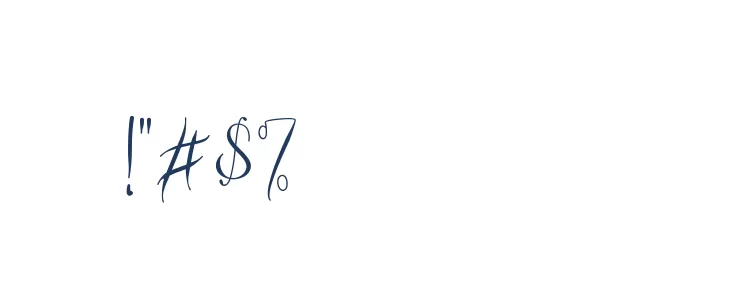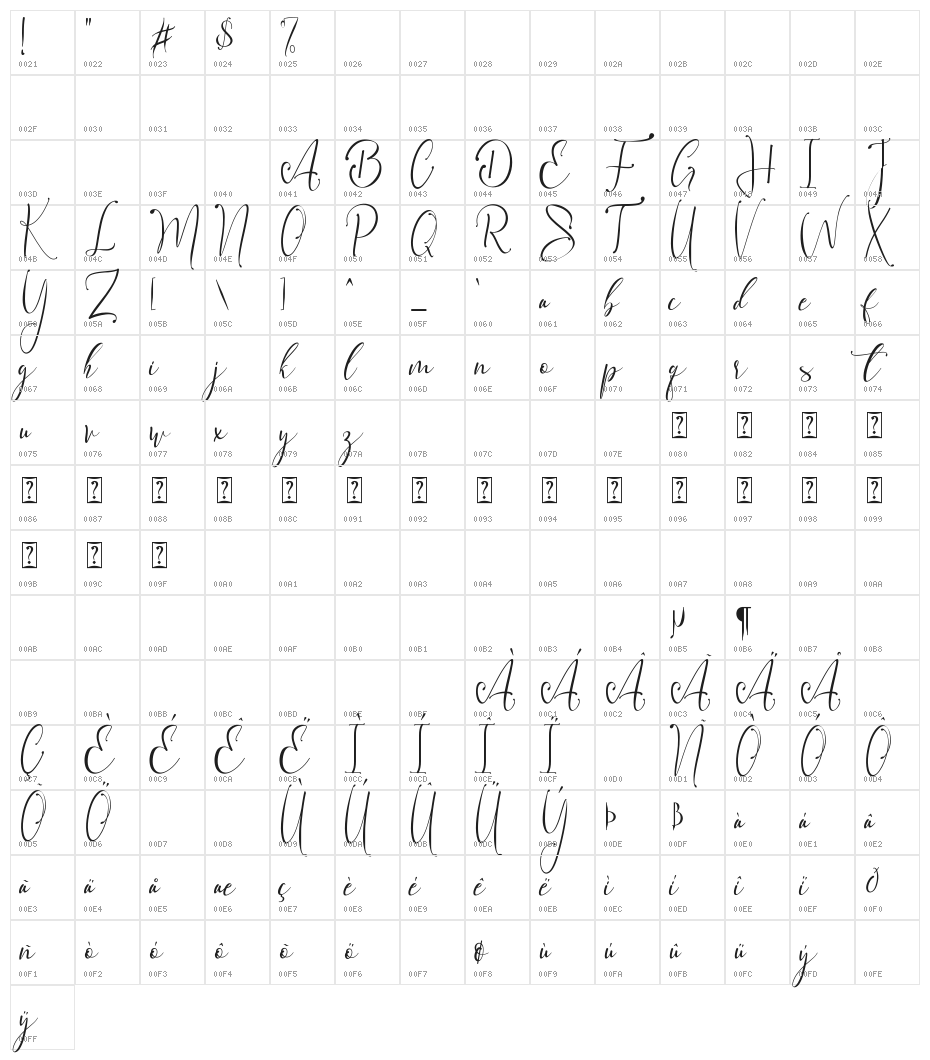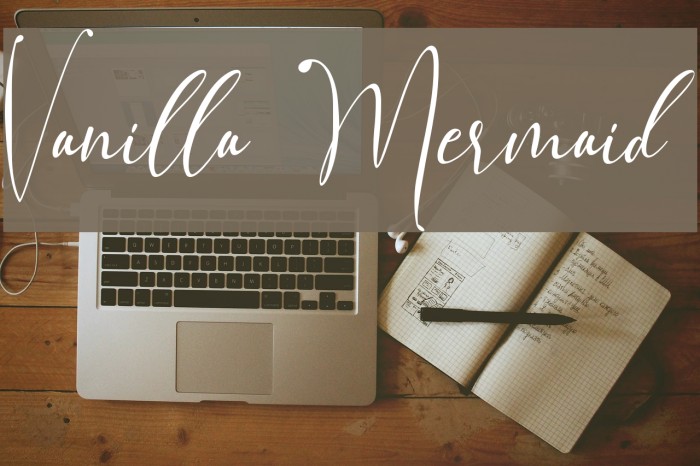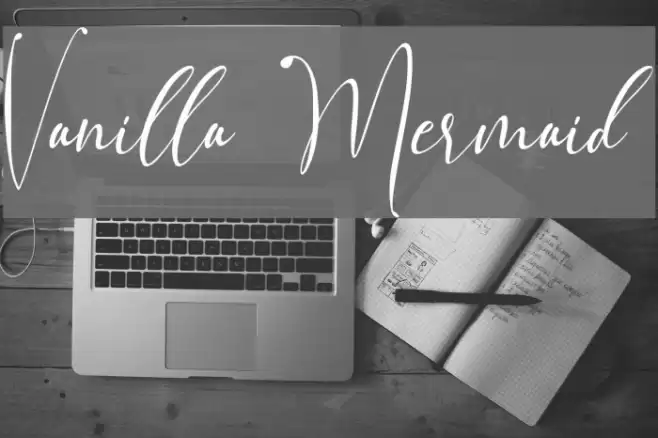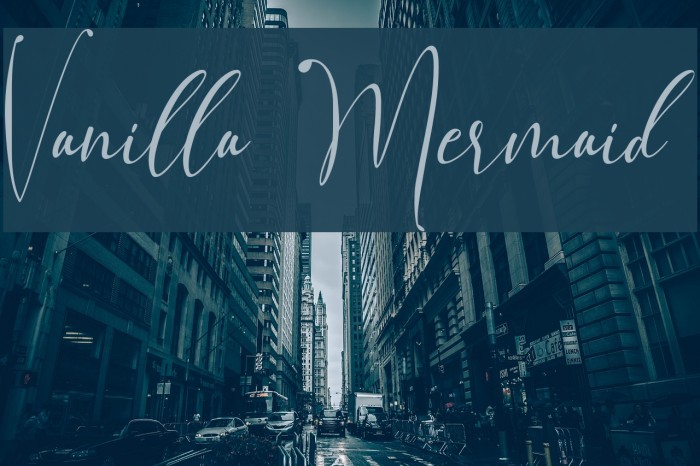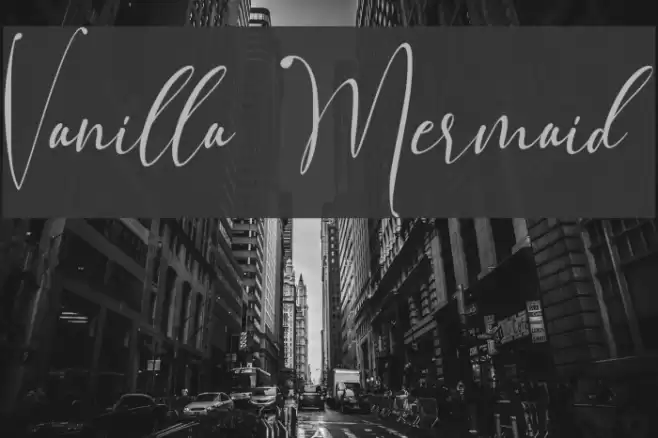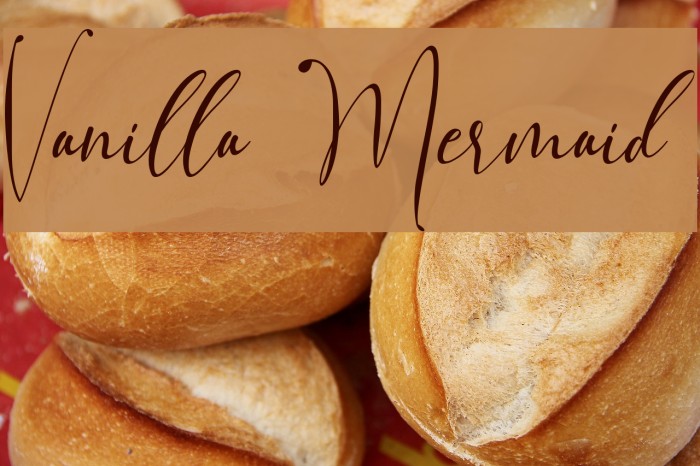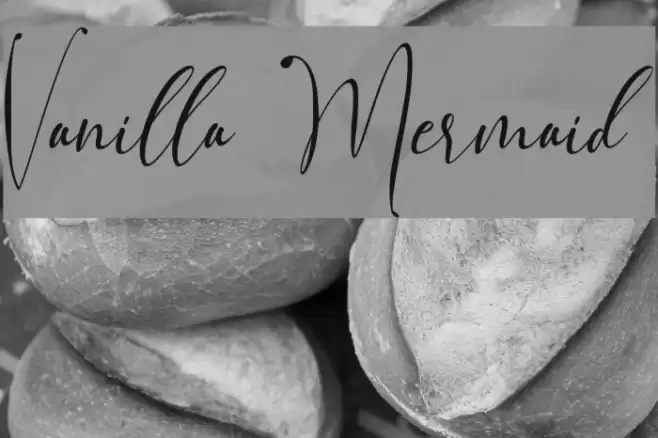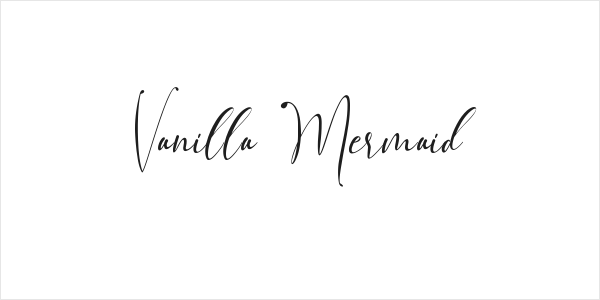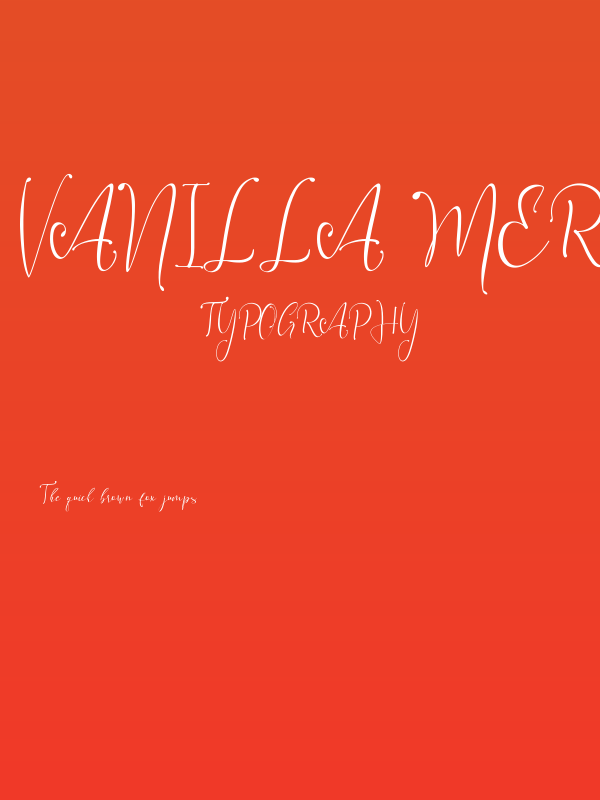
Vanilla Mermaid Font
Vanilla Mermaid Description
This font features an elegant and flowing script style, characterized by its intricate and decorative letterforms. The uppercase letters are tall and slender, with graceful loops and swirls that add a touch of sophistication. The lowercase letters maintain a consistent fluidity, with smooth transitions and delicate curves. The overall design exudes a sense of elegance and creativity, making it suitable for artistic and expressive applications. The numerals and special characters are crafted with the same attention to detail, ensuring a cohesive and harmonious appearance across all glyphs.
| Proposed Projects | Ideal for wedding invitations, greeting cards, branding, and artistic projects requiring a touch of elegance. |